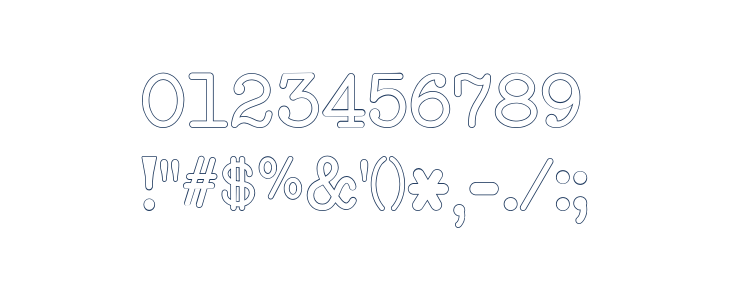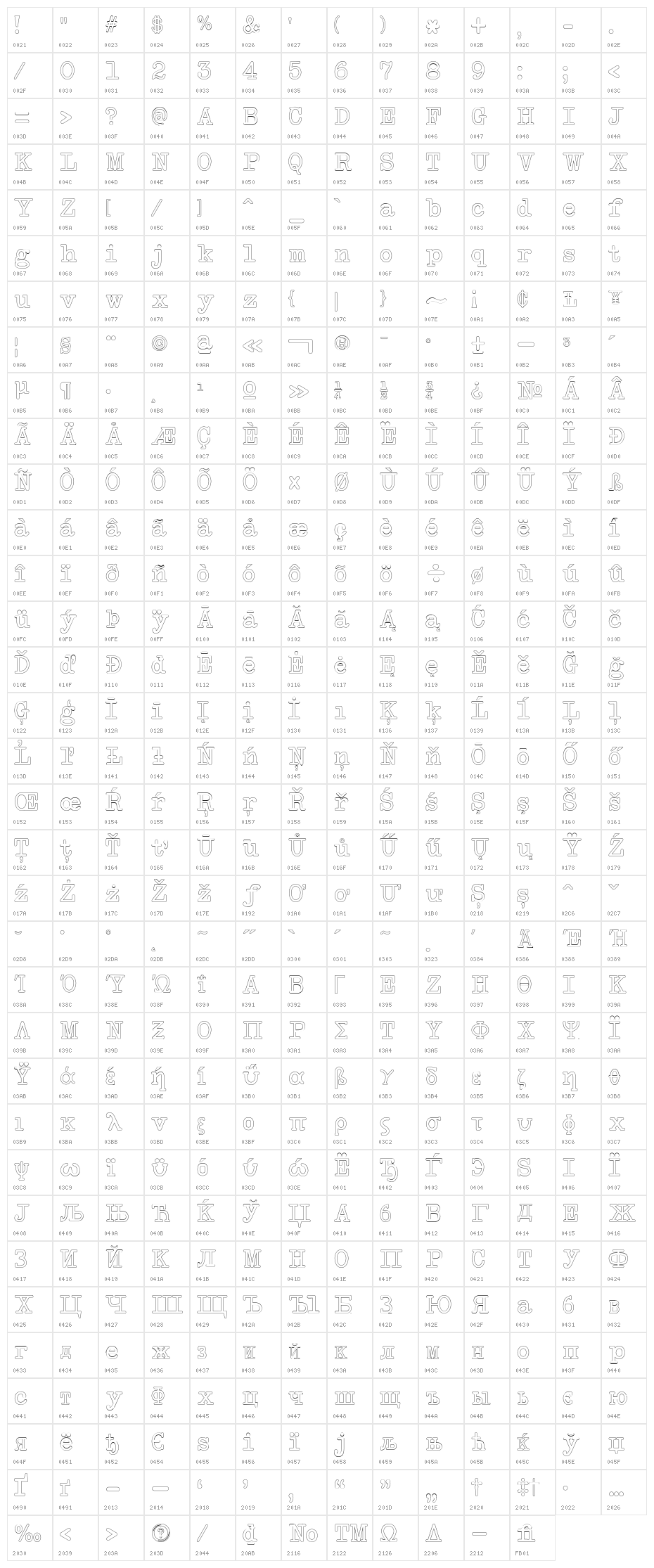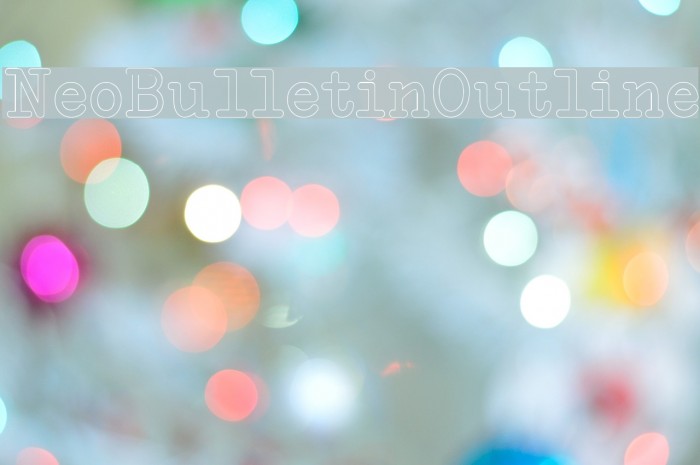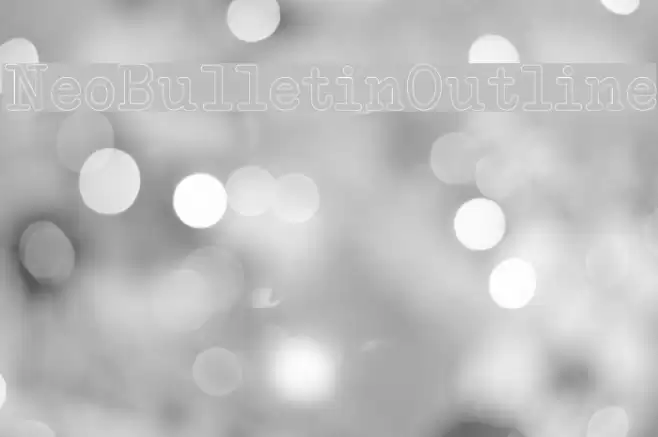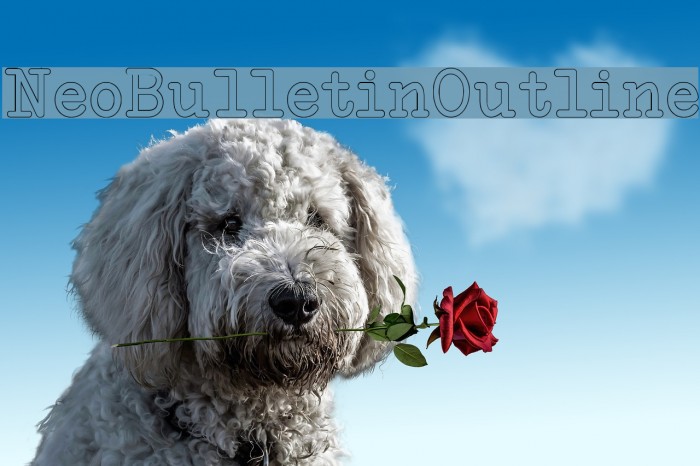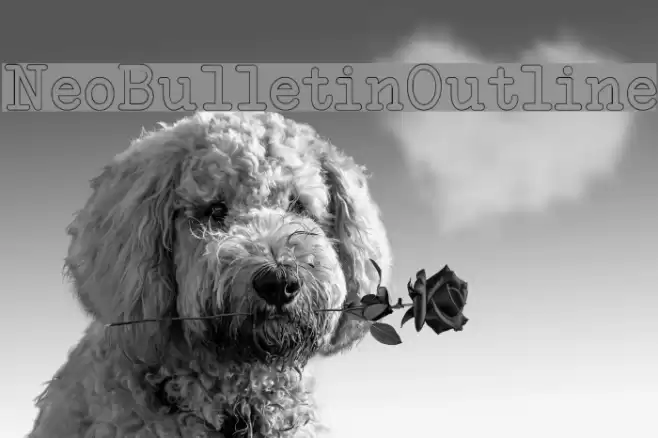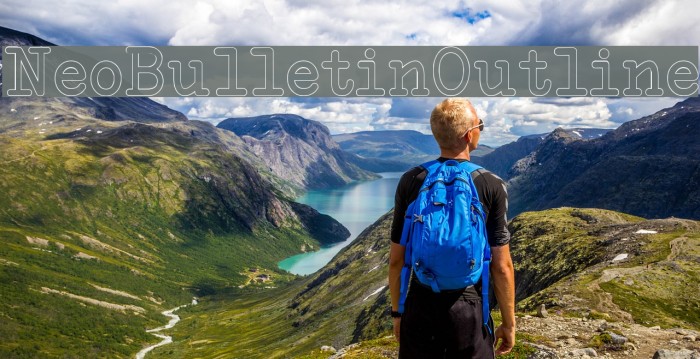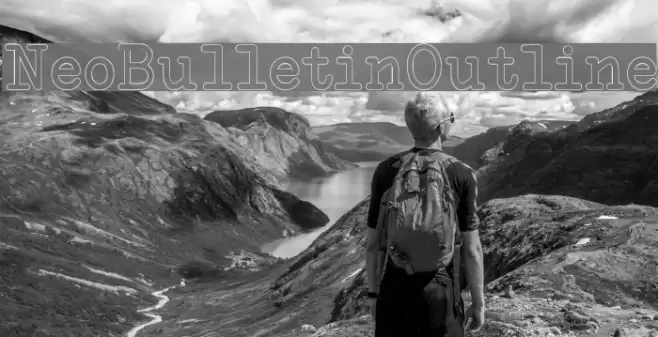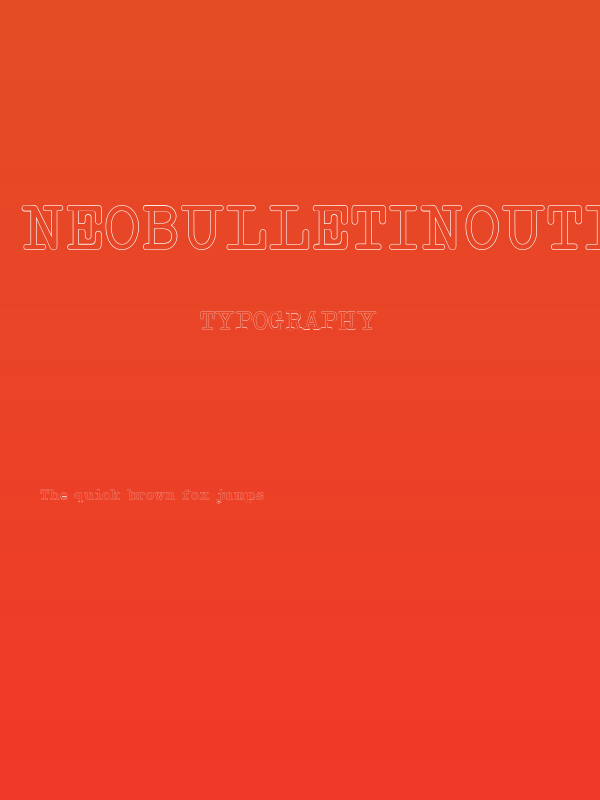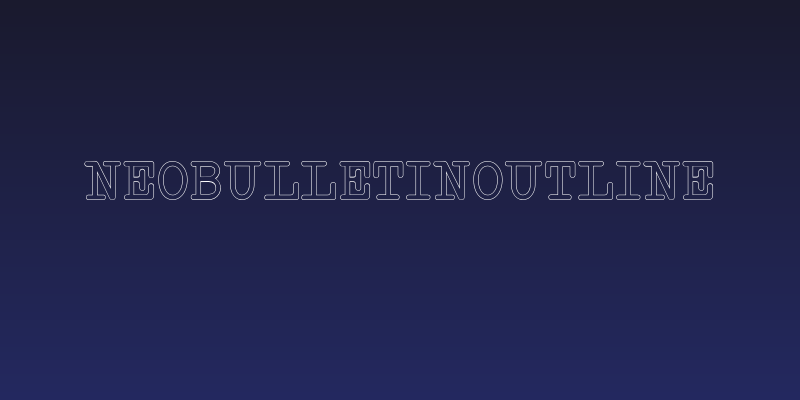
NeoBulletinOutline Font
NeoBulletinOutline Description
This font features an outline style with a classic serif design, giving it a bold yet airy appearance. The characters are well-defined with a consistent stroke width, creating a sense of uniformity and balance. The uppercase letters are prominent and commanding, while the lowercase letters maintain a harmonious flow. The numerals are clear and easily distinguishable, making them suitable for various applications. The special characters are crafted with the same attention to detail, ensuring they complement the overall aesthetic. This font's outline nature allows it to stand out in both digital and print media, providing a unique visual impact.
| Proposed Projects | Ideal for headlines, posters, branding, and any design requiring a distinctive and bold typeface. |